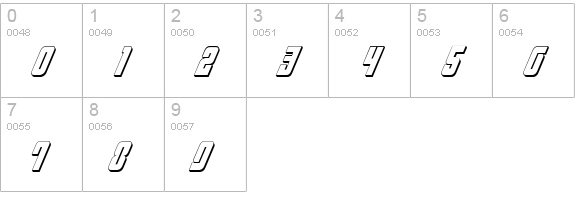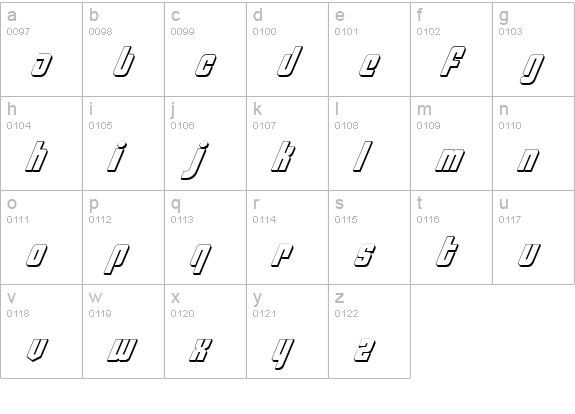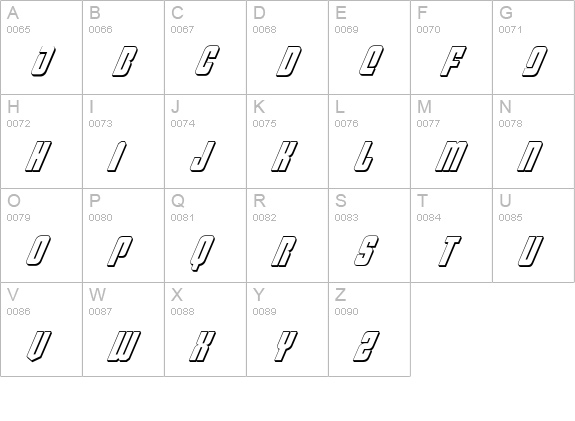
Philadelphia Italic 3D Font Details
Philadelphia Italic 3D is a distinctive, italic variant in the Philadelphia typeface family \xE2\x80\x94 well suited to design and typography projects.
Introducing the captivating Philadelphia Italic 3D font, a mesmerizing blend of elegance and modernity. This font is sure to make a lasting impression with its unique and stylish design. The Philadelphia Italic 3D font features a sleek italicized style, adding a touch of sophistication to any project. Crafted with meticulous attention to detail, this font showcases three-dimensional effects that give each character a sense of depth and dimension. The carefully crafted curves and angles create a visually striking look that is both eye-catching and professional. What sets Philadelphia Italic 3D font apart is not only its stunning design but also its availability. This font is freely available to download at FontsMarket.com, making it accessible to designers, artists, and enthusiasts alike. The creators of this font believe in the power of creativity and the importance of providing high-quality resources to inspire and empower individuals in their artistic endeavors. Whether you're designing a logo, creating a striking headline, or adding a touch of flair to your website, Philadelphia Italic 3D font is the perfect choice to elevate your project to new heights. With its versatility and modern aesthetic, this font effortlessly complements a wide range of design styles, from sleek and contemporary to bold and edgy. The Philadelphia Italic 3D font is a true testament to the artistry and innovation of font design. Its captivating visual appeal combined with its freely available download option makes it an invaluable asset in any designer's toolkit. Embrace the power of this exquisite font and let your creativity soar like never before.